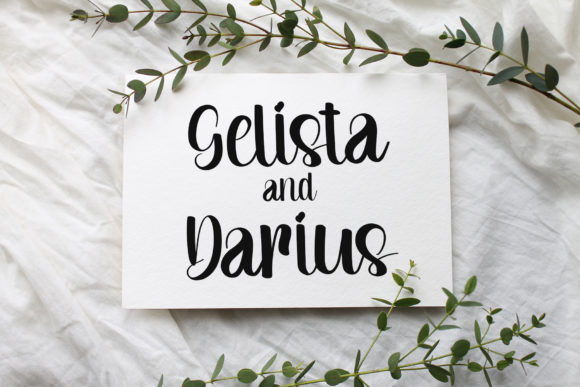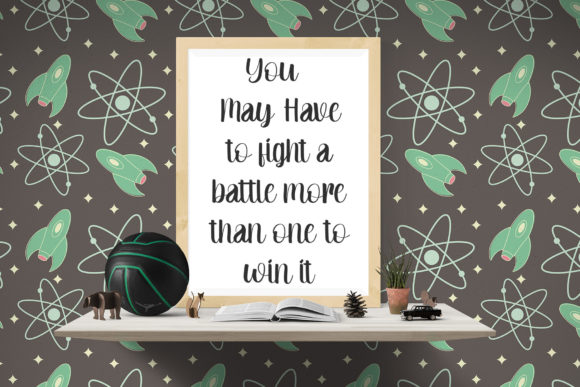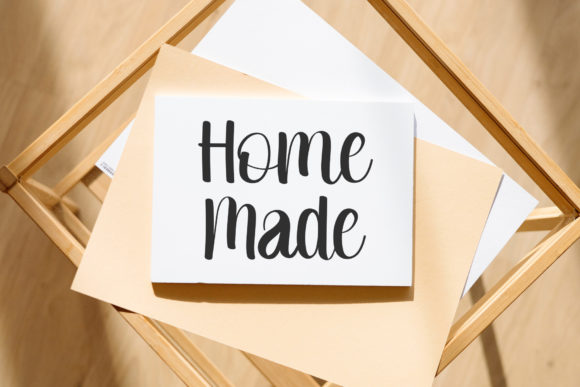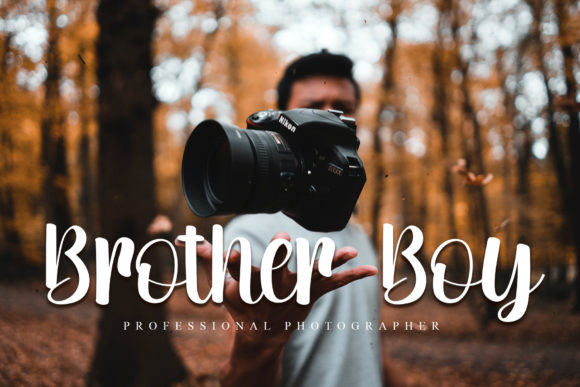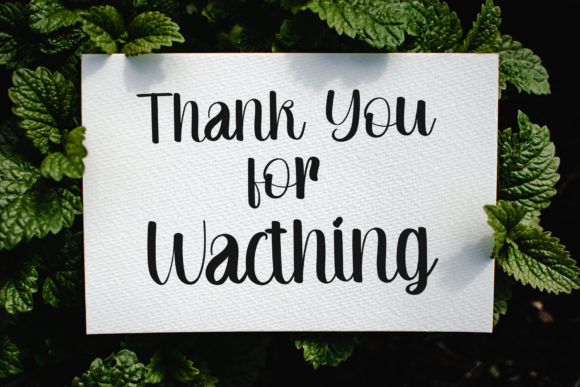
Misterday Font
“Misterday” emerges as a delightful and enduring handwritten font. It exudes an air of loveliness and timelessness, making it an excellent option for crafting captivating logos, establishing memorable branding, and showcasing impactful quotes. The uniqueness and beauty of each letter in this font add a distinctive and charming touch that breathes life into your designs.
The versatility of “Misterday” shines through, making it suitable for various design contexts. Whether you’re aiming for eye-catching logos, sophisticated branding, or inspiring quotes, this font has the potential to enhance the visual appeal of your projects.
Every letter in “Misterday” carries a unique and captivating touch that contributes to the font’s overall charm. By incorporating this font into your design endeavors, you’re elevating the impact of your work and adding a touch of authenticity to your creations.
Incorporating “Misterday” into your design projects means embracing its lovely and timeless attributes. By harnessing its unique charm, you’re enhancing the visual allure of your work and ensuring that your designs resonate effectively with your intended audience. This font becomes a valuable asset in your design toolkit, capable of breathing life into your creations and making them stand out.